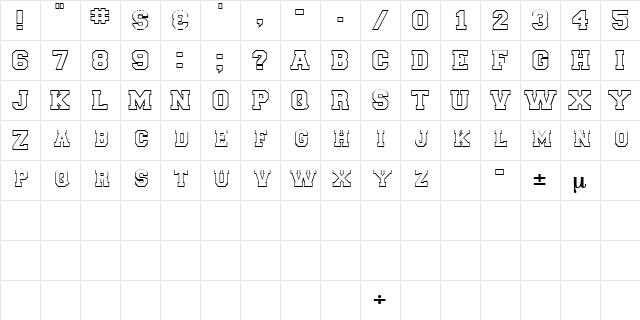
LetterSweaterOpenDisplaySCapsSSK Bold
Design Context for LetterSweaterOpenDisplaySCapsSSK
LetterSweaterOpenDisplaySCapsSSK is built around its visual character rather than neutral utility - its distinctive forms are designed to make an impression at display sizes. Its bold stroke weight gives it real presence on the page.
Font Pairing: Pair with a clean neutral sans-serif for body copy to let LetterSweaterOpenDisplaySCapsSSK's character lead without overwhelming the composition.
Pro Tip: Use LetterSweaterOpenDisplaySCapsSSK exclusively at display sizes - it was designed to be seen, not read at length. Let a neutral companion handle body copy.